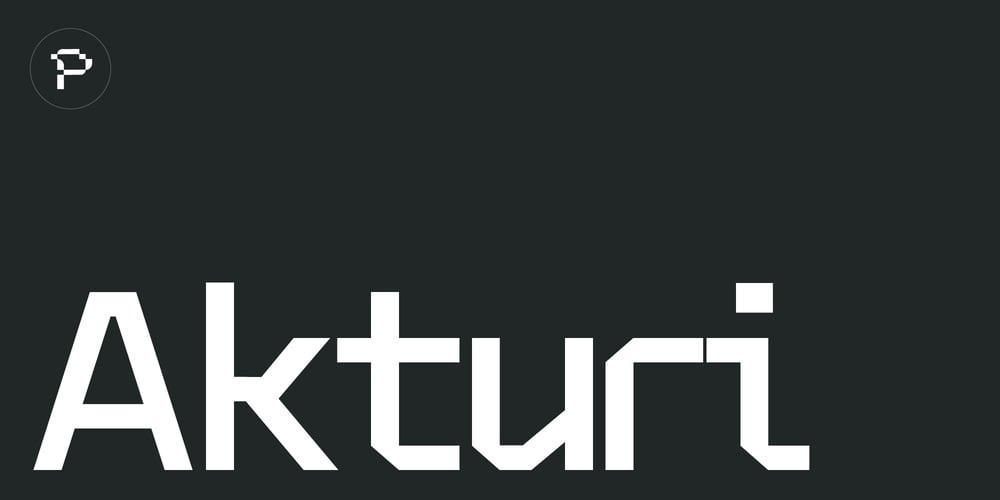
Akturi Font Family was designed by Connor Lyon and published by ProtoType. Akturi contains 7 styles and family package options. Akturi is a modular, techy and futuristic faux monospace display typeface, aiming to be used for all galactic space travel providers, mysterious coders and developers, and game designers creating strangely beautiful and gripping dystopian worlds. Featuring 471 characters, 7 stylistic sets and 7 weights, this display type offers plenty of customisability, versatility and support for 81 languages.